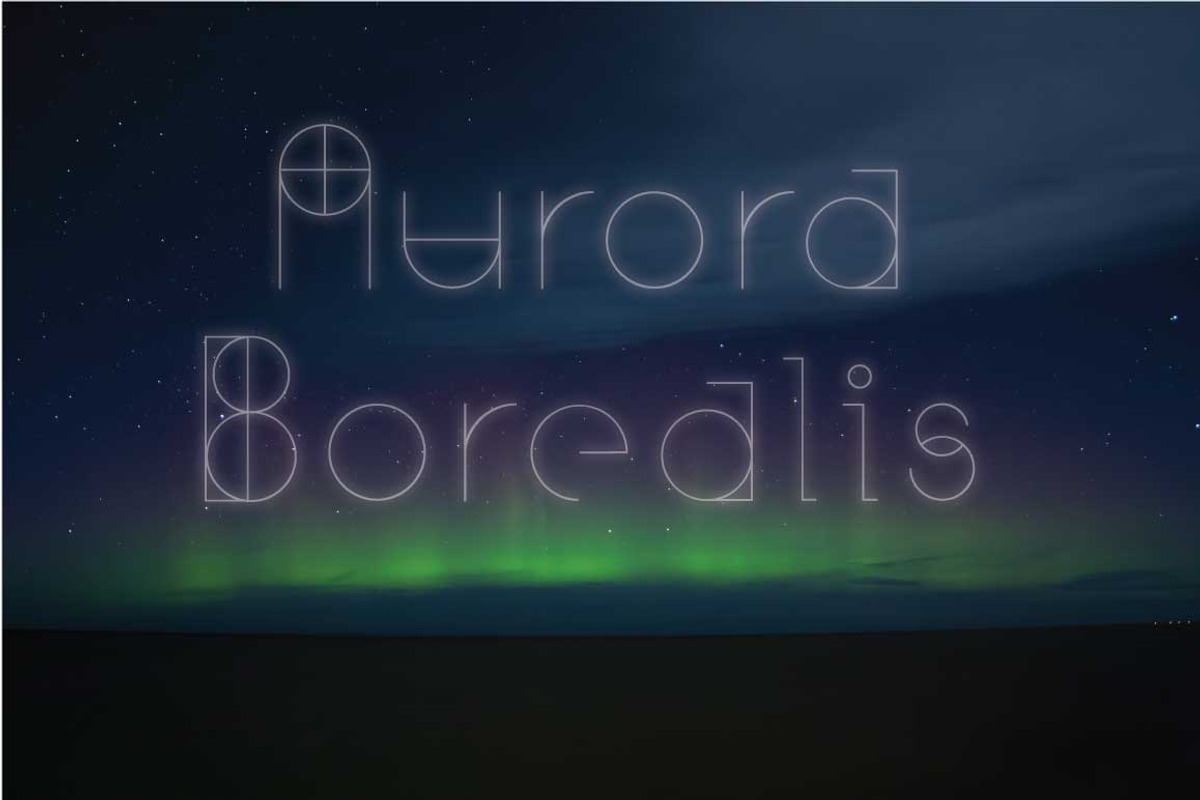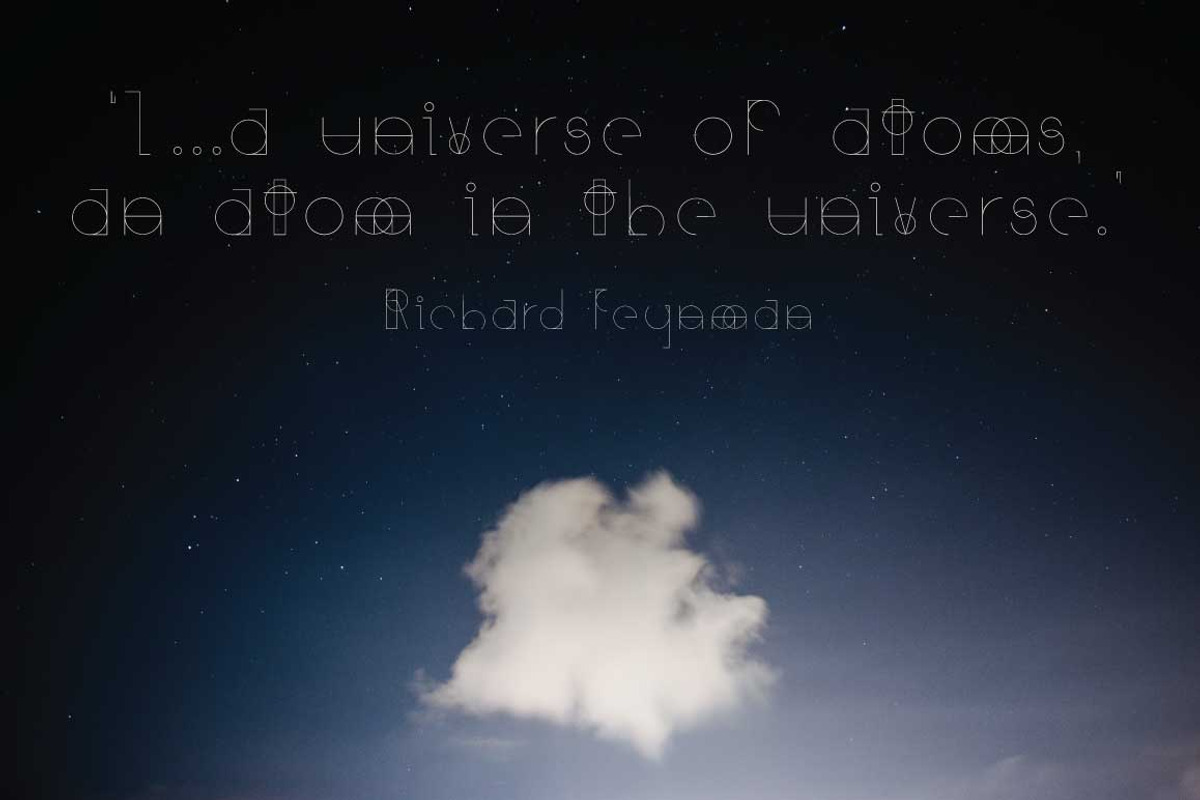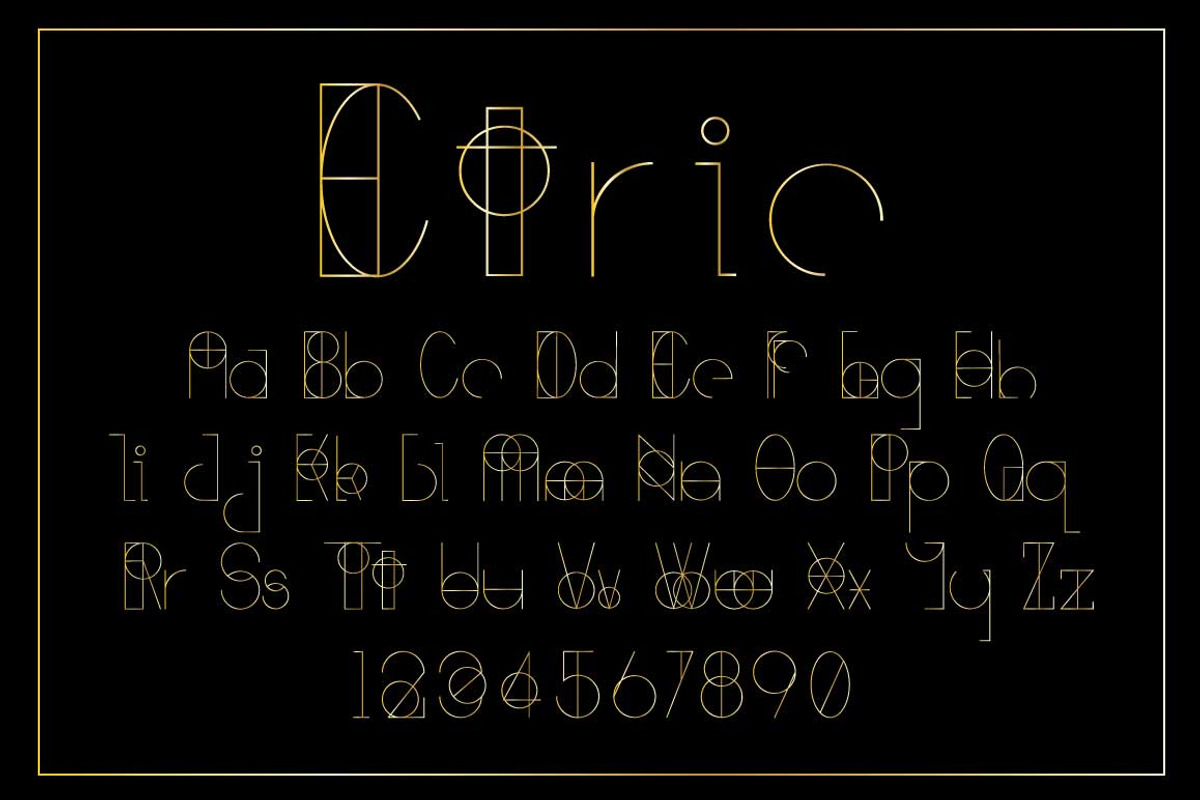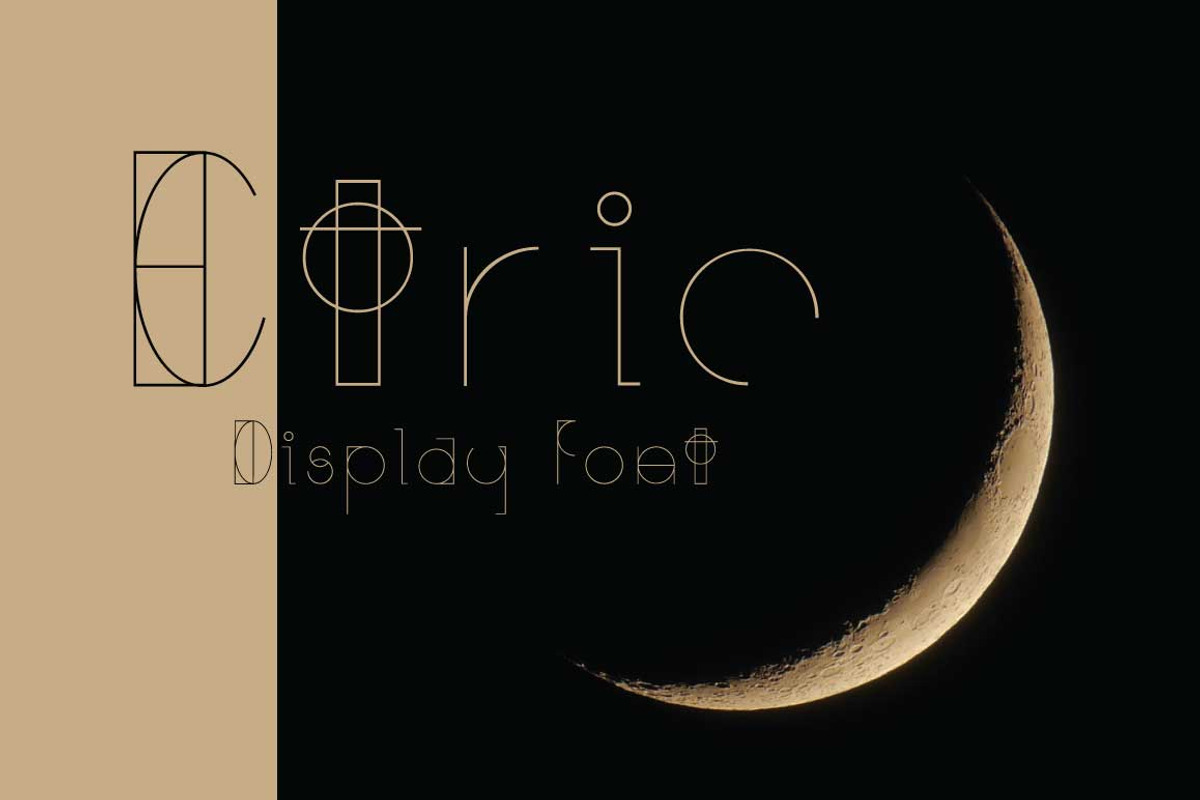
Etric Typeface
Etric Typeface by Treich Design is a font selected for branding, posters, packaging, typography.
Why Etric Typeface is worth a look
Etric Typeface by Treich Design fits naturally into Branding, posters, packaging, typography.